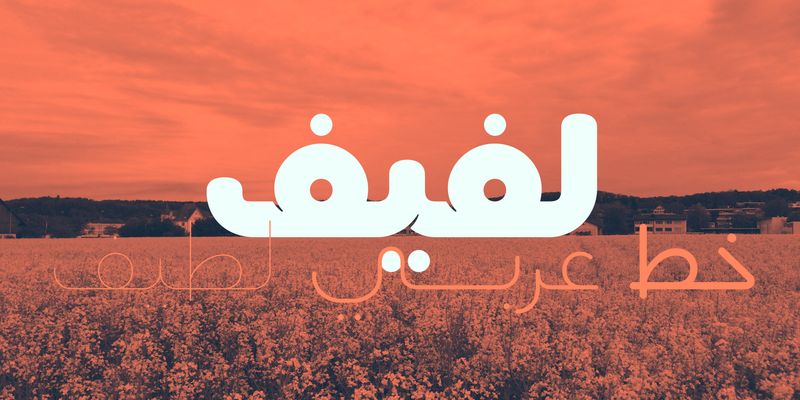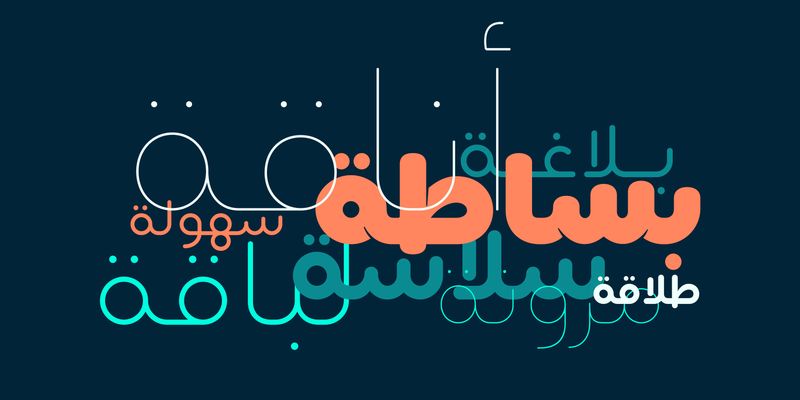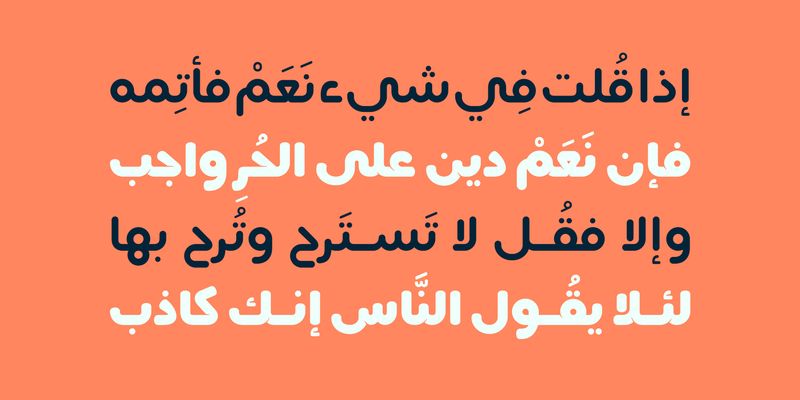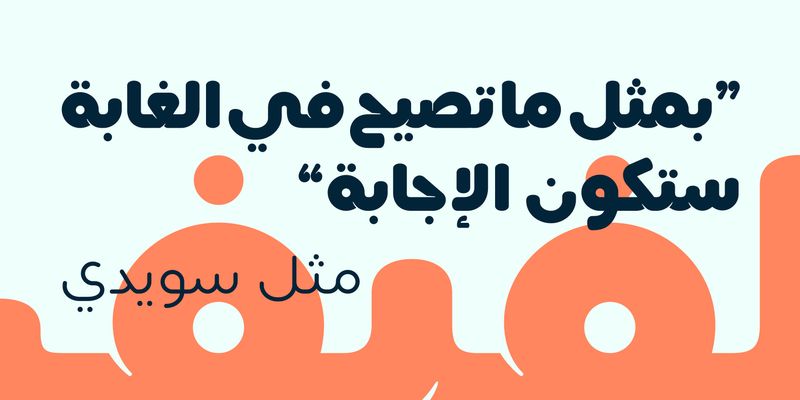
Lafeef carries the softness of rounded strokes and the character of gently distressed terminals-like a handwritten note weathered just enough to feel alive. Each weight in the family adds its own voice: the whisper‑light Air, the calm Light, the balanced Regular, the confident Bold, and the full‑bodied Fat.
Whether it appears in a brand’s headline, a web interface, or a mobile experience, Lafeef brings warmth and personality, shaping messages with a touch of crafted humanity.
Mostafa El Abasiry is an independent Arabic type designer whose work has helped define a new era of expressive Arabic typography. Since 2009, he has built a distinctive and influential catalogue of Arabic typefaces known for their bold geometry, modern aesthetics, and emotionally resonant visual character. His designs are widely recognized for merging the structural clarity of geometric construction with the creative freedom of contemporary display typography.
Mostafa’s approach is rooted in a balance of mathematical precision and artistic intuition. Many of his typefaces begin as geometric studies - circles, arcs, grids, and modular systems, before evolving into expressive display families with strong visual identity. Other designs explore texture, layering, and experimental forms, expanding the expressive potential of Arabic letterforms in digital environments.
In 2017, Mostafa introduced Tajreed, the first Arabic OpenType‑SVG color font ever created. This pioneering work brought textured, multi‑layered Arabic typography into mainstream digital use and opened a new category of expressive Arabic tools for designers and everyday creators. Tajreed later grew into a broader ecosystem of textured and experimental families that influenced how Arabic typography appears in mobile apps, creative platforms, and user‑generated content.
Mostafa’s typefaces have been used by a wide range of clients, from global brands such as Apple TV+ and Turkish Airlines to millions of everyday creators. Despite this reach, his design process remains deeply personal: every typeface begins with hand‑drawn sketches, geometric construction, and a search for a unique visual voice rooted in Arab visual culture.
Today, Mostafa continues to expand his catalogue with new display families, textured experiments, and modern interpretations of Arabic typographic heritage. His work aims to give designers and creators expressive tools that did not exist before - tools that make Arabic typography feel bold, modern, and alive.